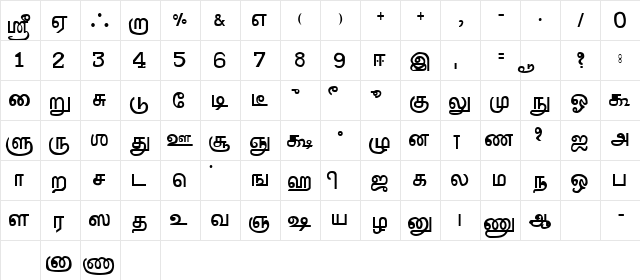
MylaiPlain Regular Font Preview
MylaiPlain Regular
MylaiPlain Regular Font Details
Design Context for MylaiPlain Typeface
MylaiPlain takes a measured approach to typography — its balanced proportions and neutral character make it a reliable workhorse for both digital and print work.